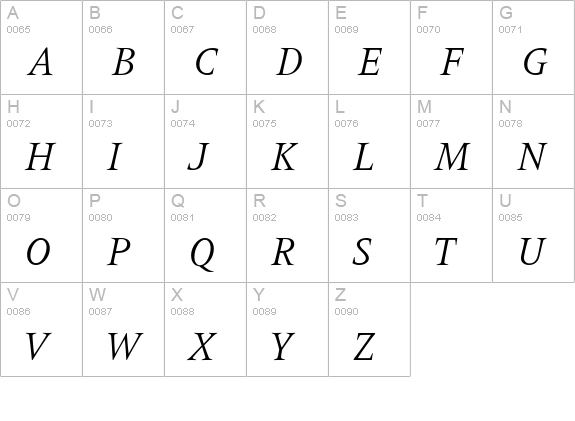
Metaphor-Italic Font Details
Metaphor-Italic is a distinctive, italic variant in the Metaphor typeface family \xE2\x80\x94 well suited to design and typography projects.
Metaphor-Italic font exudes elegance and sophistication with its sleek and stylish design. The italicized letterforms convey a sense of movement and grace, making this font perfect for adding a touch of sophistication to any project. The delicate curves and slanted angles create a sense of dynamic energy, while maintaining readability and clarity. What sets Metaphor-Italic font apart is its versatility - it can be used for a wide range of design projects, from branding to editorial layouts to invitations. Whether you're looking to add a touch of class to your wedding invitations or create a sleek and modern logo for your business, this font has you covered. And the best part? Metaphor-Italic font is completely free to download at FontsMarket.com. So go ahead and elevate your design projects with this stunning font today!